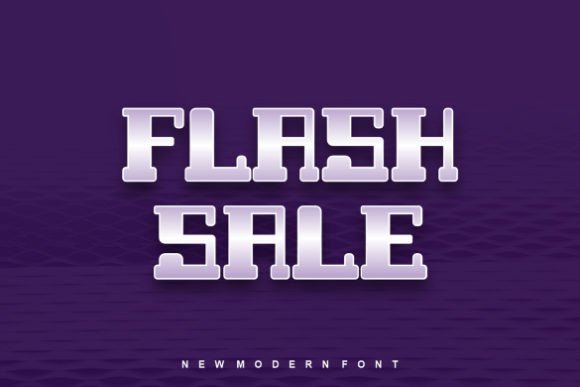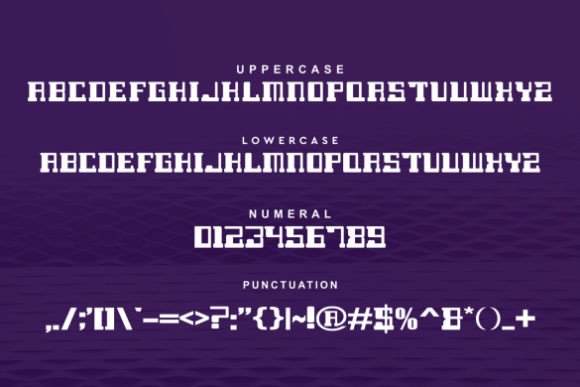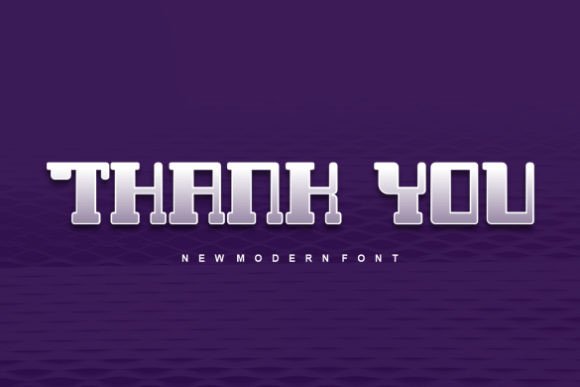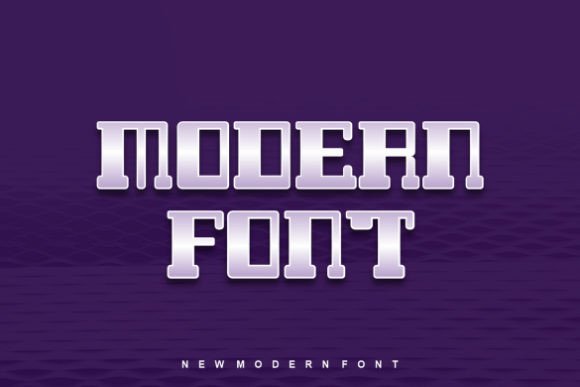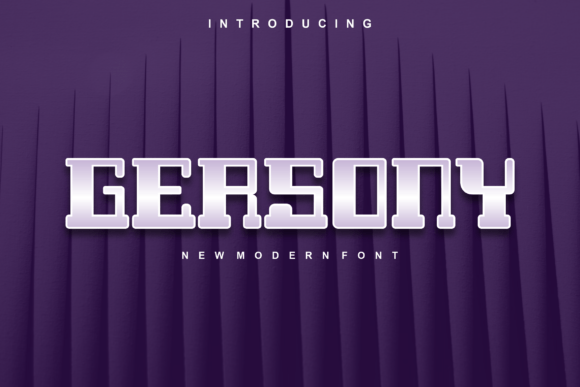
Gersony Font: Elevate Your Designs with a Cool and Modern Display Font
Are you tired of using the same old fonts in your designs? Do you want to add a touch of modernity and sophistication to your creative projects? Look no further than the Gersony font. This cool and modern display font is perfect for designers and crafters who want to make their work stand out from the crowd.
What is Gersony Font?
Gersony is a stylish and contemporary display font that is designed to make a statement. Its unique and elegant lettering makes it perfect for use in a variety of creative projects, from branding and advertising to packaging and digital media. With its clean lines and modern aesthetic, Gersony is sure to add a touch of sophistication to any design.
Key Features of Gersony Font
- Modern and stylish design: Gersony has a unique and contemporary design that is sure to make your designs stand out.
- Elegant lettering: The font features elegant and refined lettering that is perfect for use in high-end designs.
- Clean lines: Gersony’s clean lines and simple design make it easy to read and use in a variety of contexts.
- Versatile: This display font is perfect for use in a range of creative projects, from digital media to print materials.
- Easily readable: Despite its elegant design, Gersony is easy to read and use in a variety of contexts.